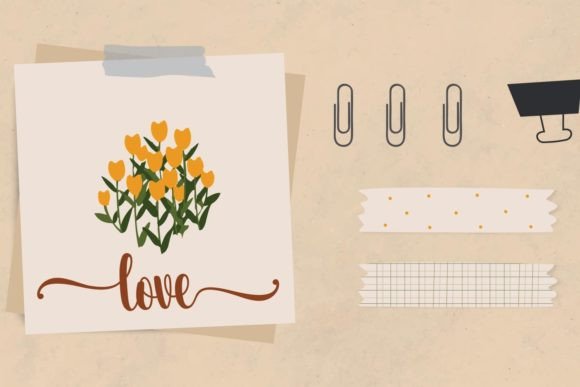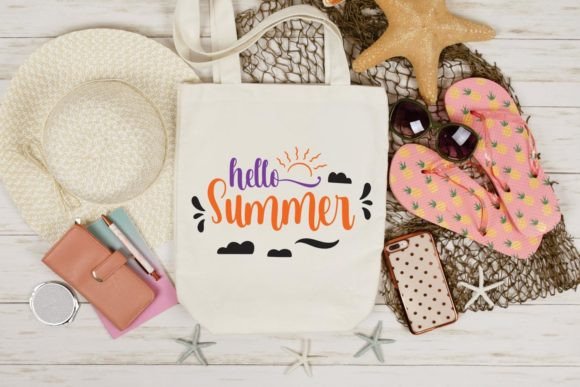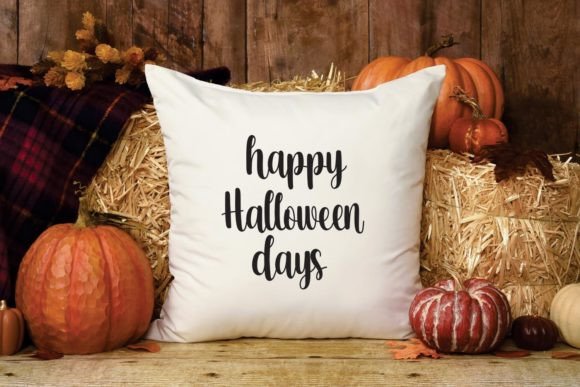
Milkshake Font
Milkshake is a script handwritten font.
It is a quirky and natural hand-drawn font.
This font is ideal for crafting, branding, wedding invitations, or your blog. You can create a logo or beautiful frame for your home, or just use it for your business, book covers, stationery, marketing, magazines, and more.
Fall in love with its incredibly versatile style, and use it to create spectacular designs!
Use this font for any crafting project that requires a personalized look!